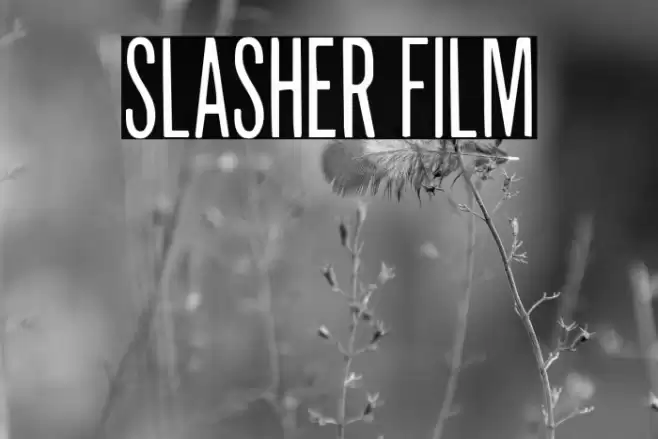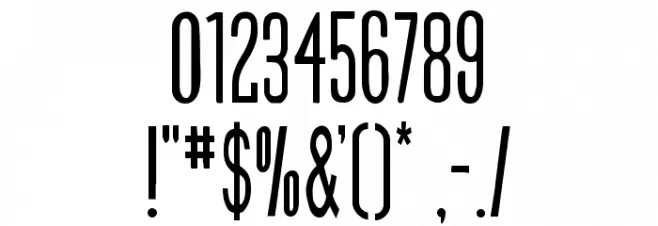
Slasher Film Font
Slasher Film Description
This font features a tall and narrow design with a modern, edgy feel. The characters are elongated with a consistent stroke width, giving it a sleek and streamlined appearance. The uppercase and lowercase letters maintain a uniform height, enhancing the font's cohesive look. The numerals and special characters are designed to match the overall aesthetic, providing a complete and versatile typeface. Its clean lines and sharp angles make it suitable for projects that require a contemporary and bold statement.
A tall, narrow, and modern font with consistent stroke width and sharp angles from Regular fonts.
- Proposed Projects: Ideal for movie posters, album covers, branding, and advertising that require a bold and modern aesthetic.